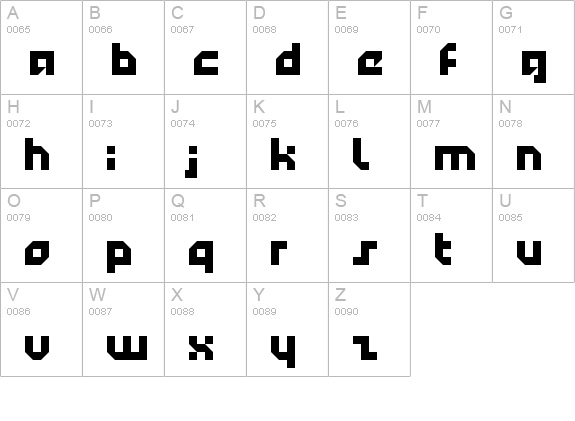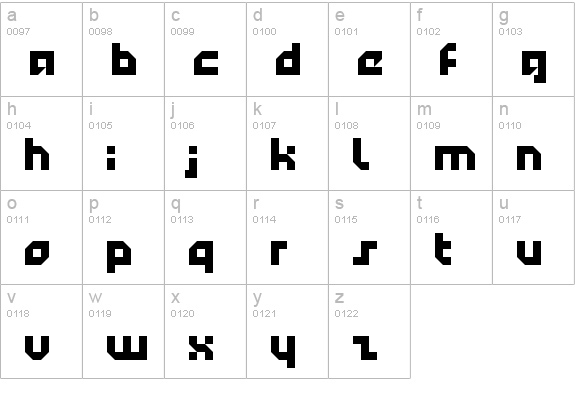
Technotot Font Details
Technotot font is a modern and sleek typeface that exudes a futuristic and tech-savvy vibe. With its clean lines and bold characters, Technotot is perfect for conveying a sense of innovation and cutting-edge design in any project. The font's unique geometric shapes and contemporary style make it a versatile choice for a wide range of applications, from branding to web design to print materials.